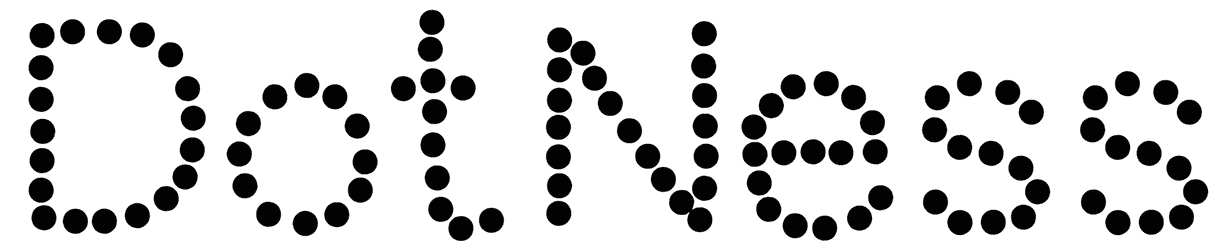
DotNess Font
Impressing the audience, especially the youngsters, is not a difficult task anymore with the help of a dotted font such as DotNess that carries a sense of jauntiness, youth, drama, or approachability. This masterpiece is…
Impressing the audience, especially the youngsters, is not a difficult task anymore with the help of a dotted font such as DotNess that carries a sense of jauntiness, youth, drama, or approachability. This masterpiece is perfectly fit for all of your professional needs, including billboards, headlines, banner ads, illustrations, and flyers.